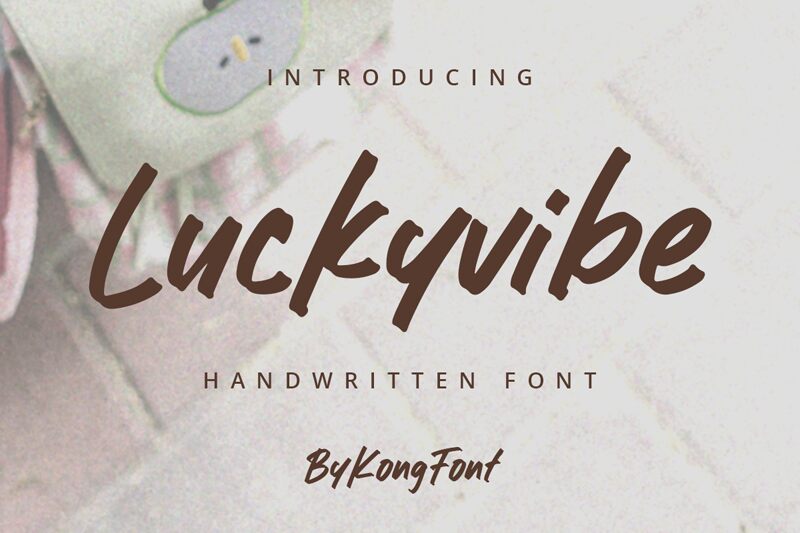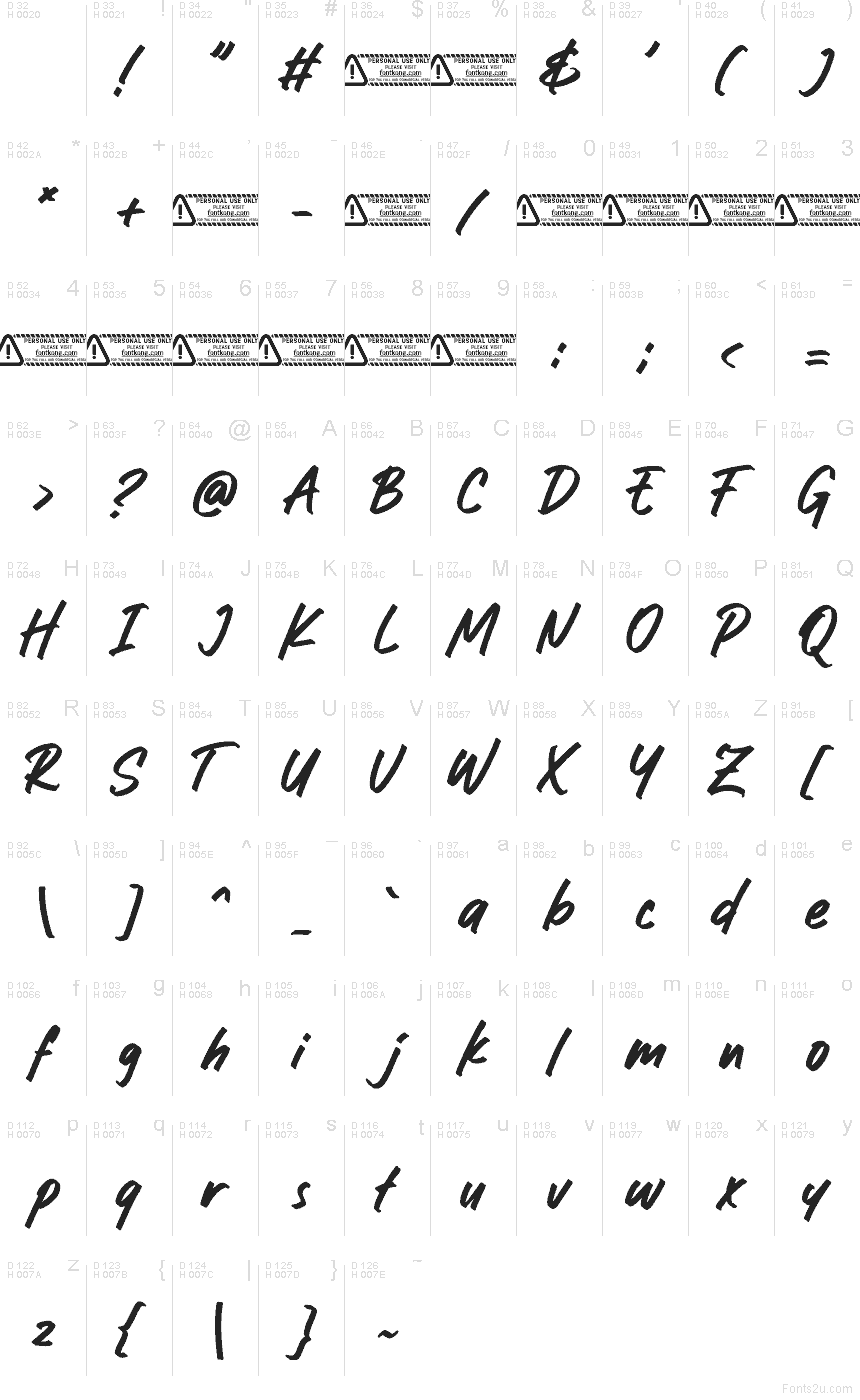
Luckyvibe font by Kong Font is a free handwritten script typeface with bold, slanted strokes that feel like they were painted in one confident sweep. The letters lean forward with a strong, optimistic motion, while the dry-brush texture keeps things raw and human, not overly polished. It lands in that sweet spot between casual and assertive—friendly enough for playful branding, but punchy enough to headline your message.
Using Luckyvibe, you can give instant personality to logos, social media graphics, YouTube thumbnails, posters, apparel prints, packaging, and bold quote layouts. This free font thrives at larger sizes where its inky edges and energetic rhythm can really show. For balance, pair Luckyvibe with a clean, neutral sans serif for body text and supporting details.